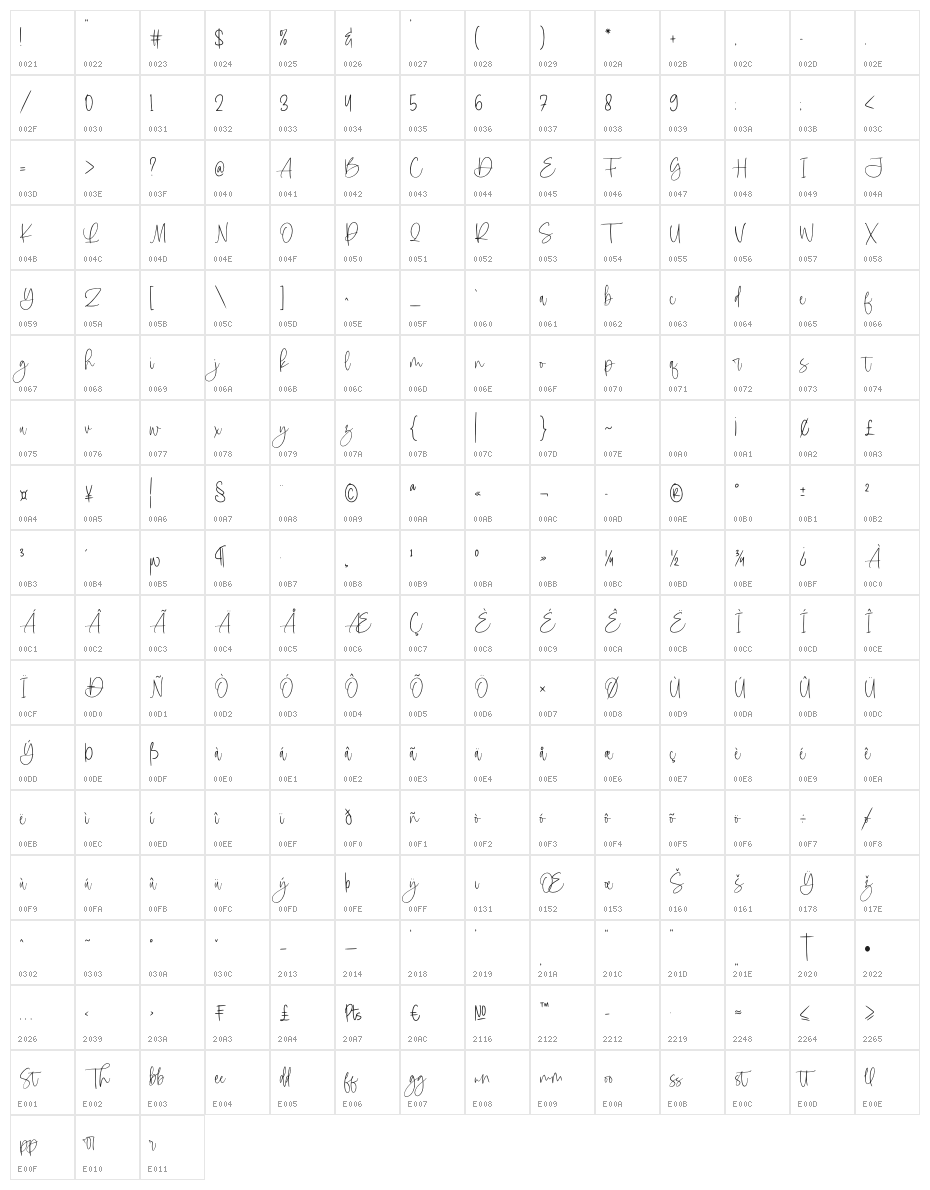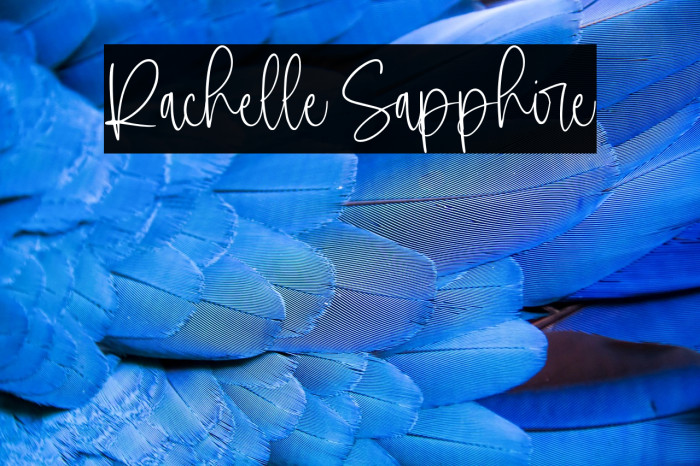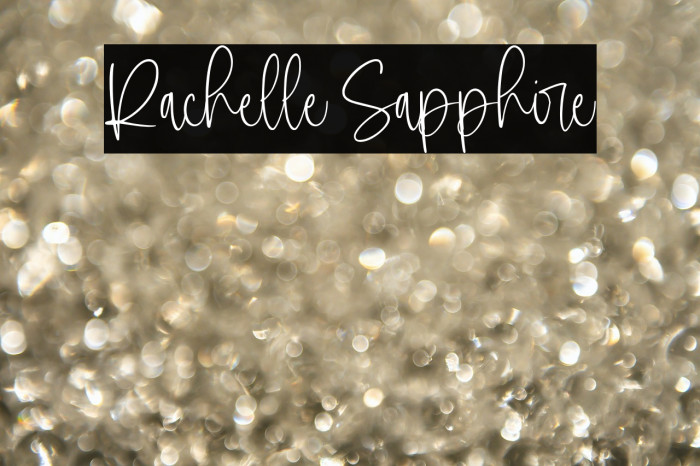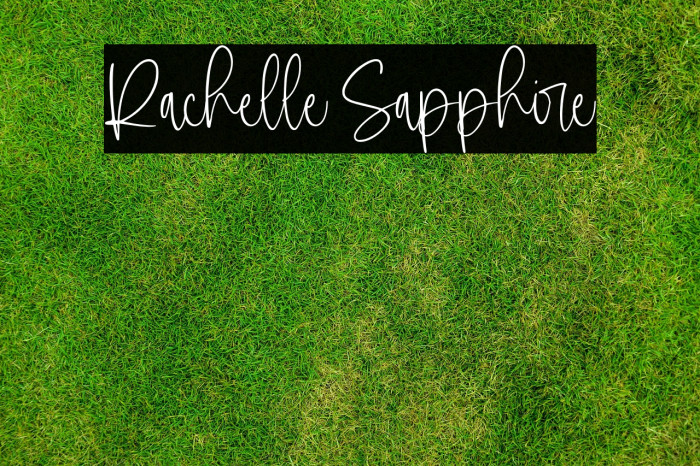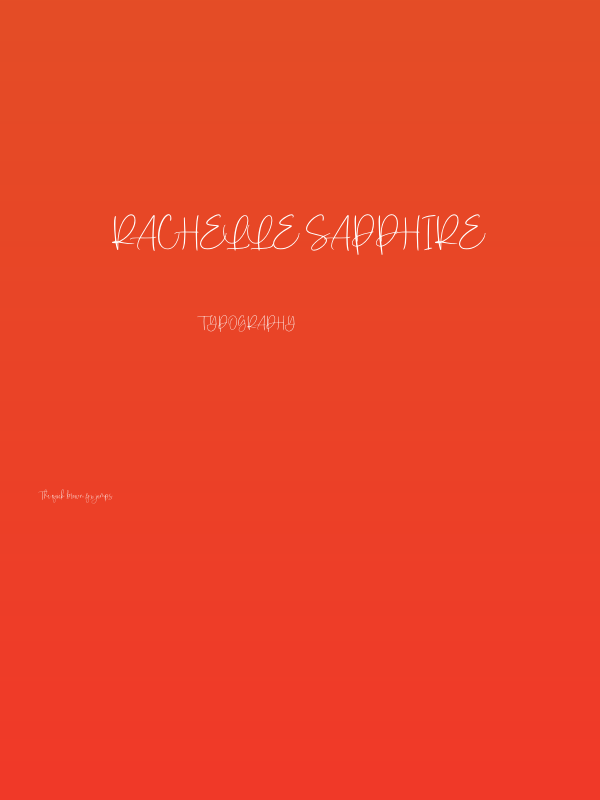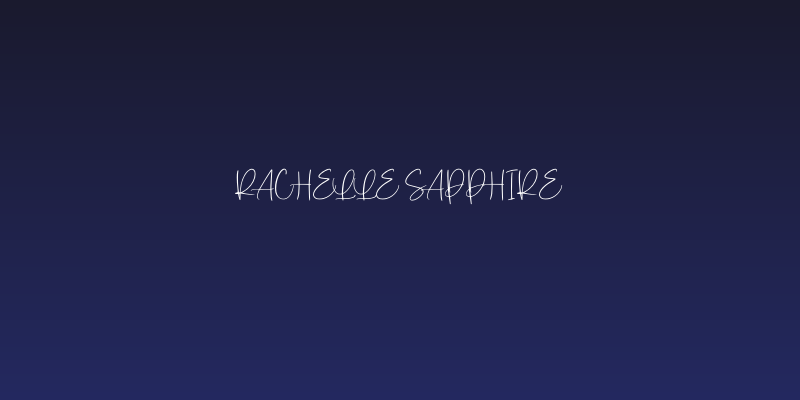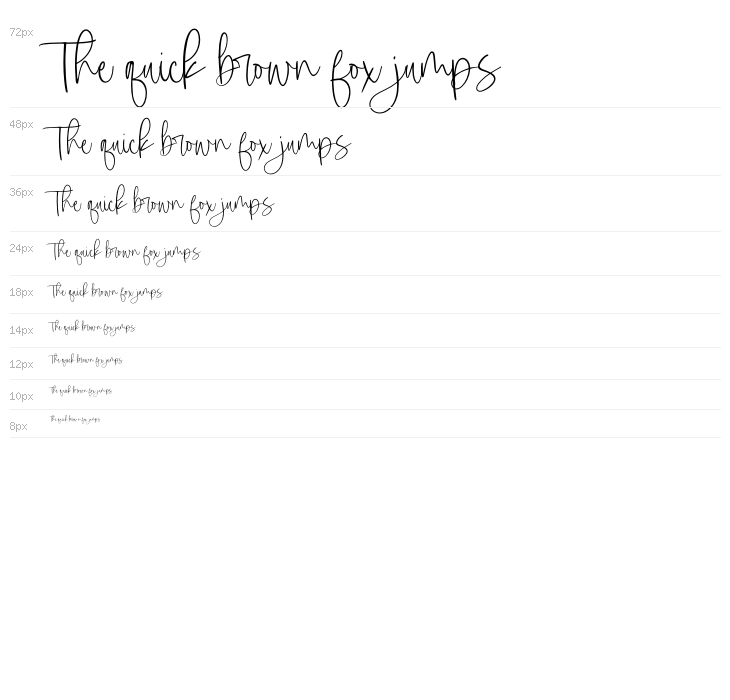
Rachelle Sapphire Font
Rachelle Sapphire Description
A flowing, elegant script font with a handwritten style, featuring smooth curves and a casual yet sophisticated appearance.
| Use Case | Logos, Invitations, Greeting cards |
| Proposed Projects | Invitations, greeting cards, personal branding. |